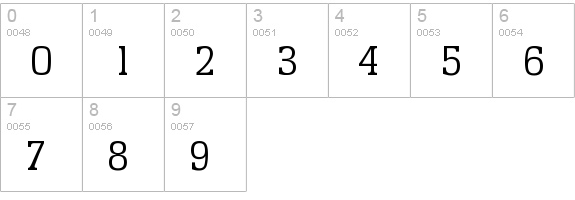
EnschedeSerial-Light-Regular is a refined, elegant variant in the EnschedeSerial typeface family \xE2\x80\x94 well suited to elegant body text, refined sub-headings, and luxury branding.
EnschedeSerial-Light-Regular is a modern and elegant font that exudes sophistication and clarity. With its clean lines and balanced proportions, this typeface is versatile and perfect for a wide range of design projects. Whether used for headings, body text, or branding, EnschedeSerial-Light-Regular will bring a touch of refinement to any layout. What makes this font even more appealing is that it is freely available to download at FontsMarket.com. Yes, you read that right – you can enhance your design projects with this high-quality typeface without any cost. Just head over to FontsMarket.com, grab your copy of EnschedeSerial-Light-Regular, and start creating stunning designs with ease. Don't miss out on this fantastic opportunity to add a touch of sophistication to your projects for free.